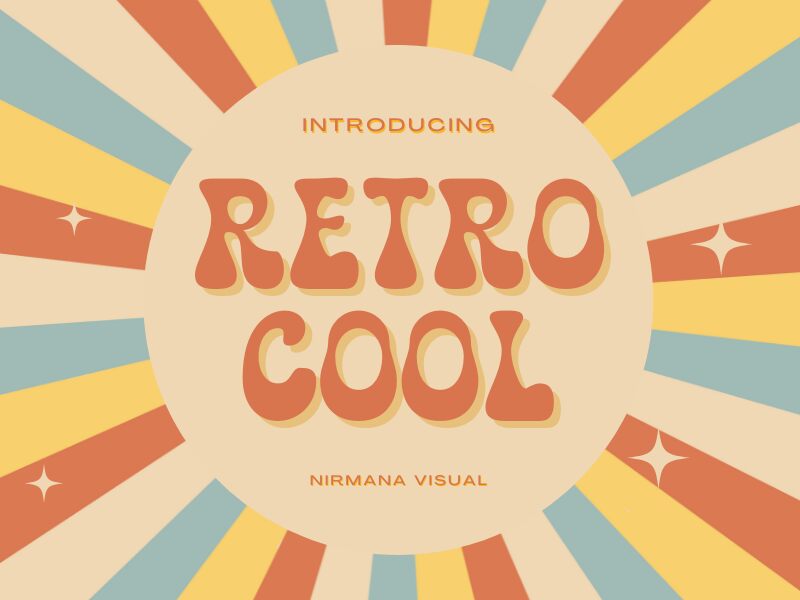
Retro Cool, designed by Nirmana Visual, is a bold and groovy display font that adds a touch of nostalgia to any project. Its playful curves and vibrant character make it perfect for retro-themed designs, disco-inspired logos, vintage posters, and groovy album covers. With its bold weight, Retro Cool demands attention and stands out in headlines or titles. Whether you're creating a vibrant party invitation or designing a funky website header, this font will transport your audience back to the groovy days of the past while giving your project a cool and unique edge.
Retro Cool by Nirmana Visual,
Retro Cool